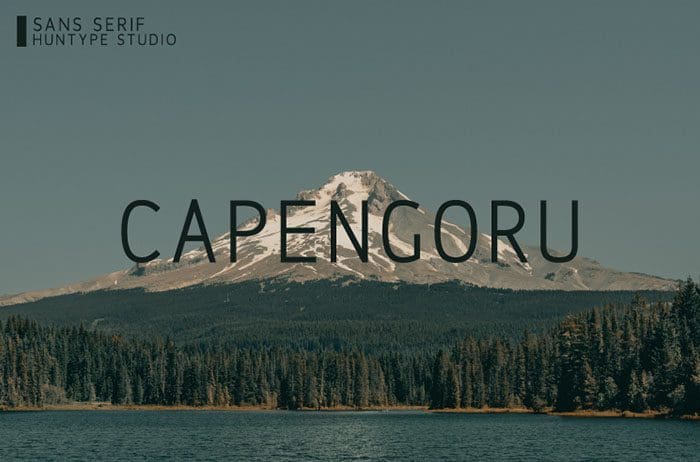
Capengoru Sans Serif Font
Capengoru is a fancy, contemporary sans serif font. Use Capengoru to achieve an exquisite, yet subtle look and maximum versatility. Thanks to Mas Anis for sharing this font! Take a look on this portfolio for more of his stunning fonts.